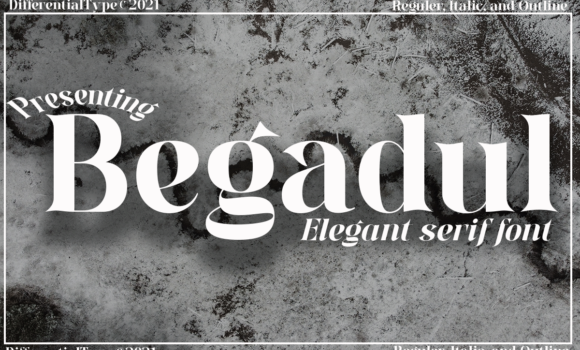
begadul
Begadul Font – Free Download Introduction to Begadul Font Begadul is an elegant serif font with a contrasting thickness, very suitable for displays such as titles, greeting cards, magazine covers, and many more. 📸 Preview Gallery 6 images 📌 Product